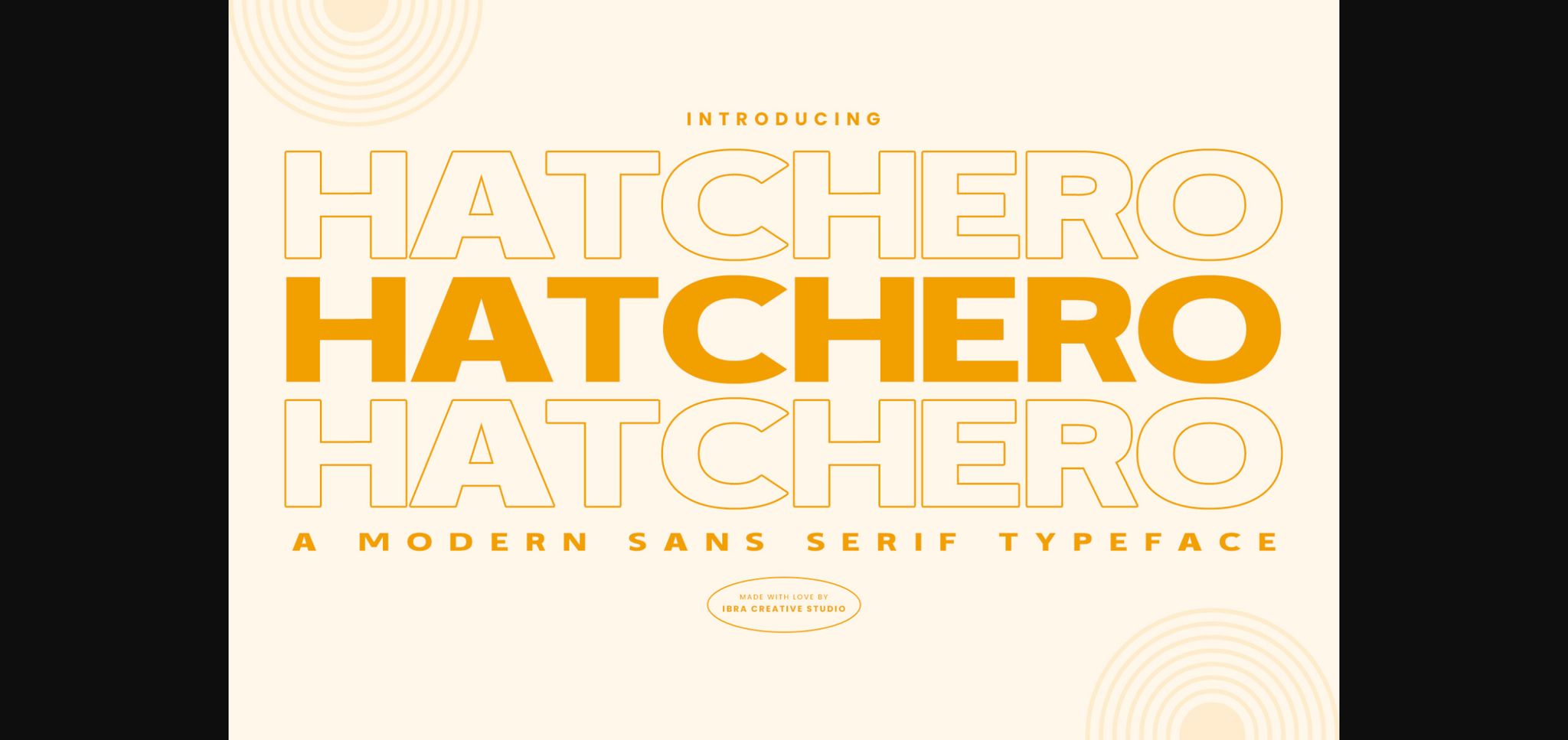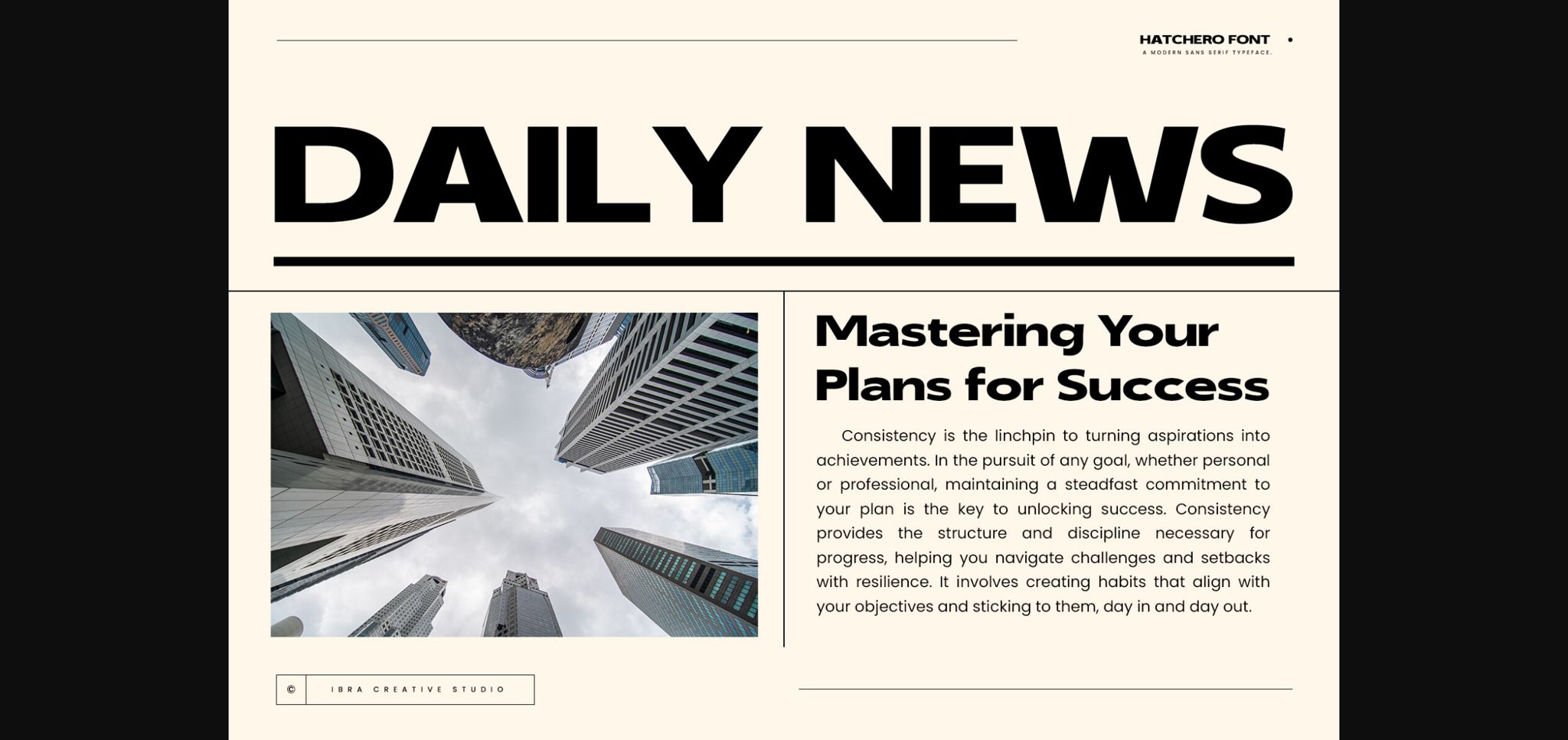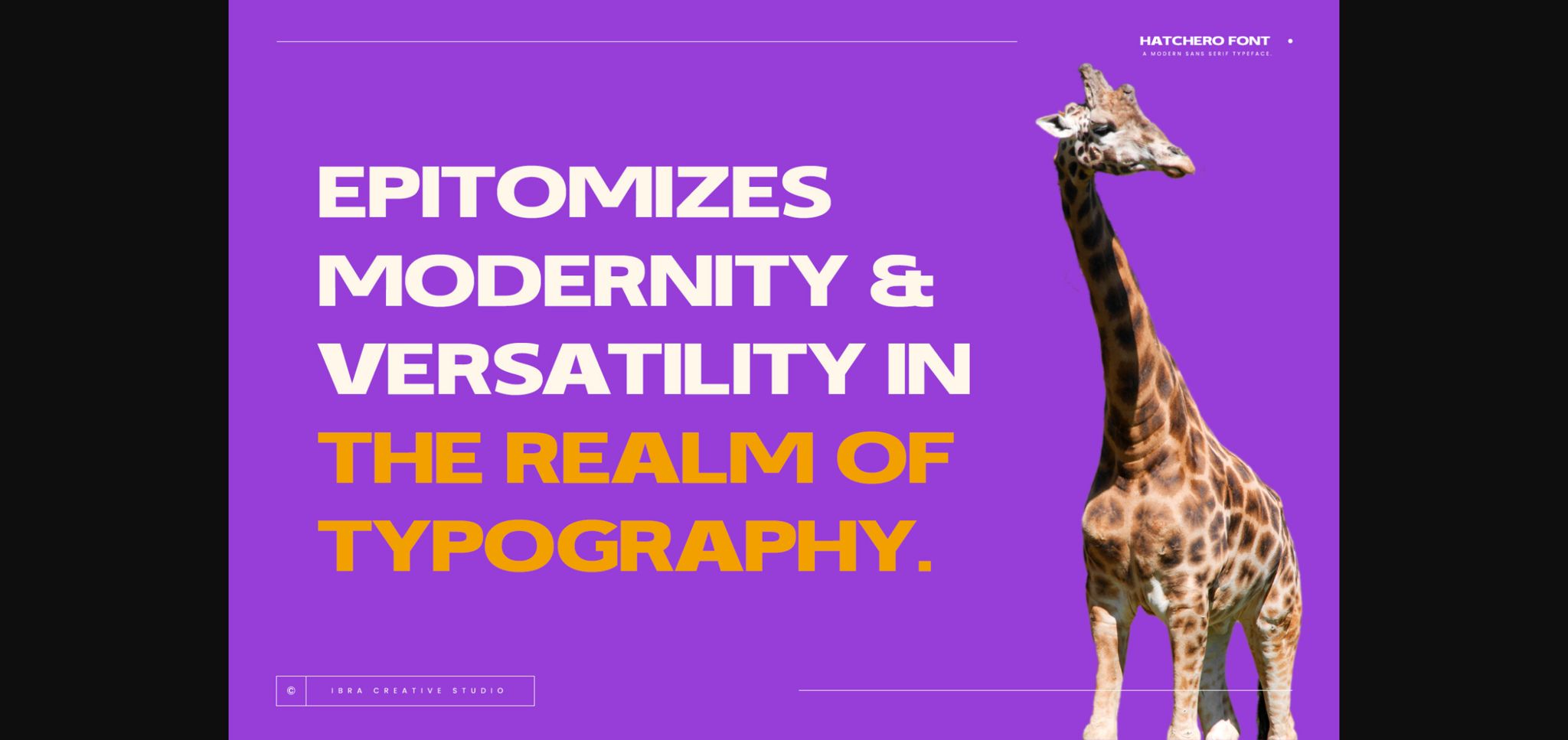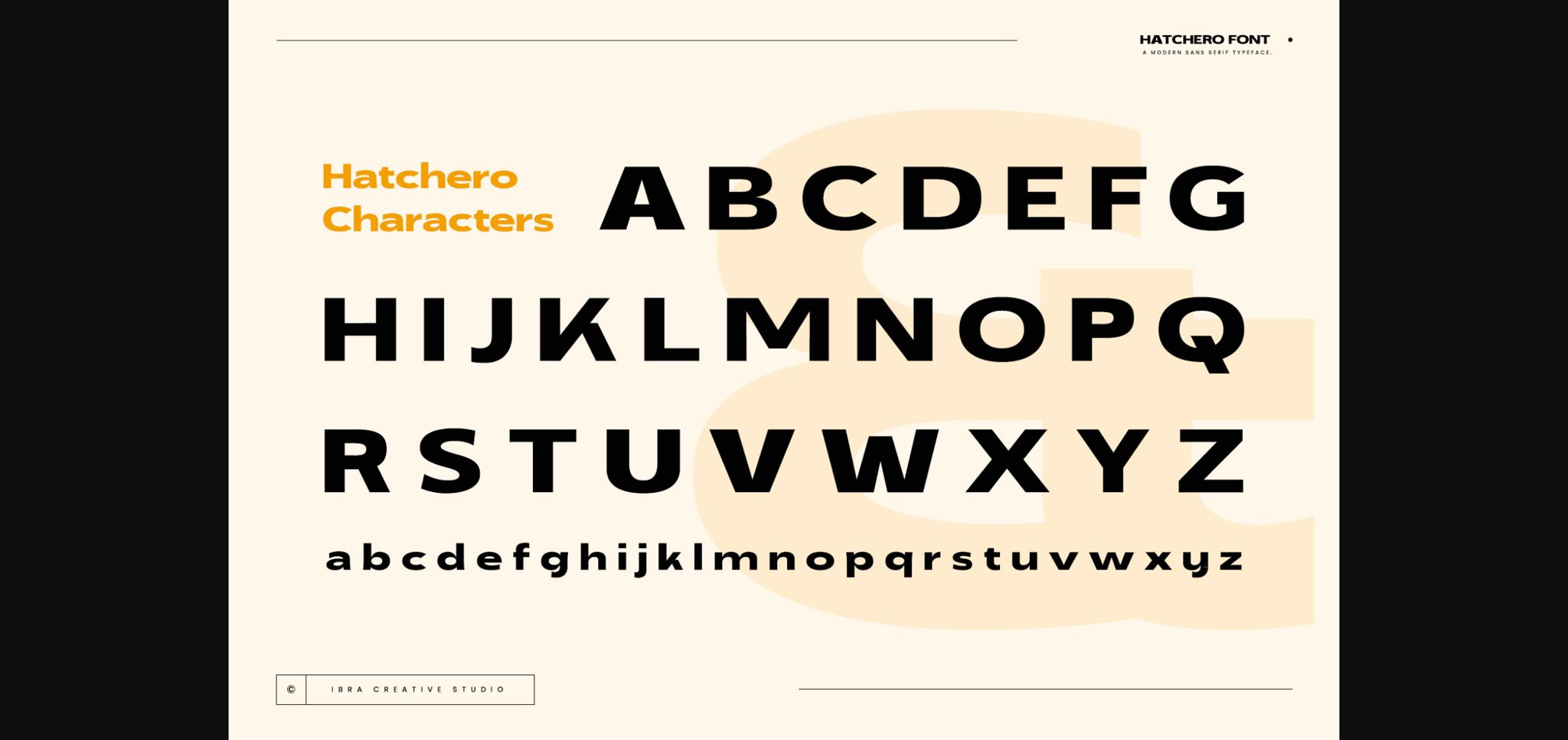
About Hatchero Font
Hatchero, a contemporary sans-serif typeface, epitomizes modernity and versatility in the realm of typography. Its clean lines and balanced proportions create a sleek and minimalist aesthetic, making it an ideal choice for a wide array of design applications. Whether used for digital interfaces, editorial layouts, or corporate branding, Hatchero exudes a timeless sophistication that effortlessly blends with diverse visual contexts. The typeface’s simplicity is its strength, offering clarity and readability while maintaining a sense of contemporary elegance.